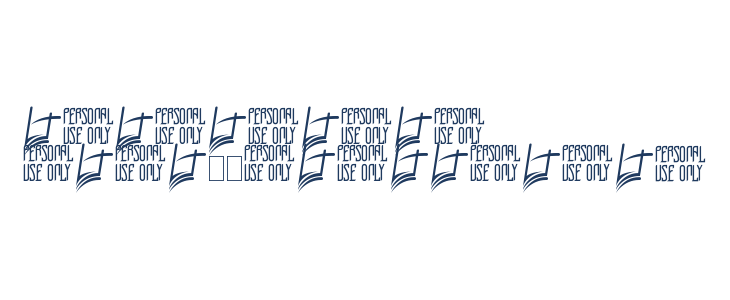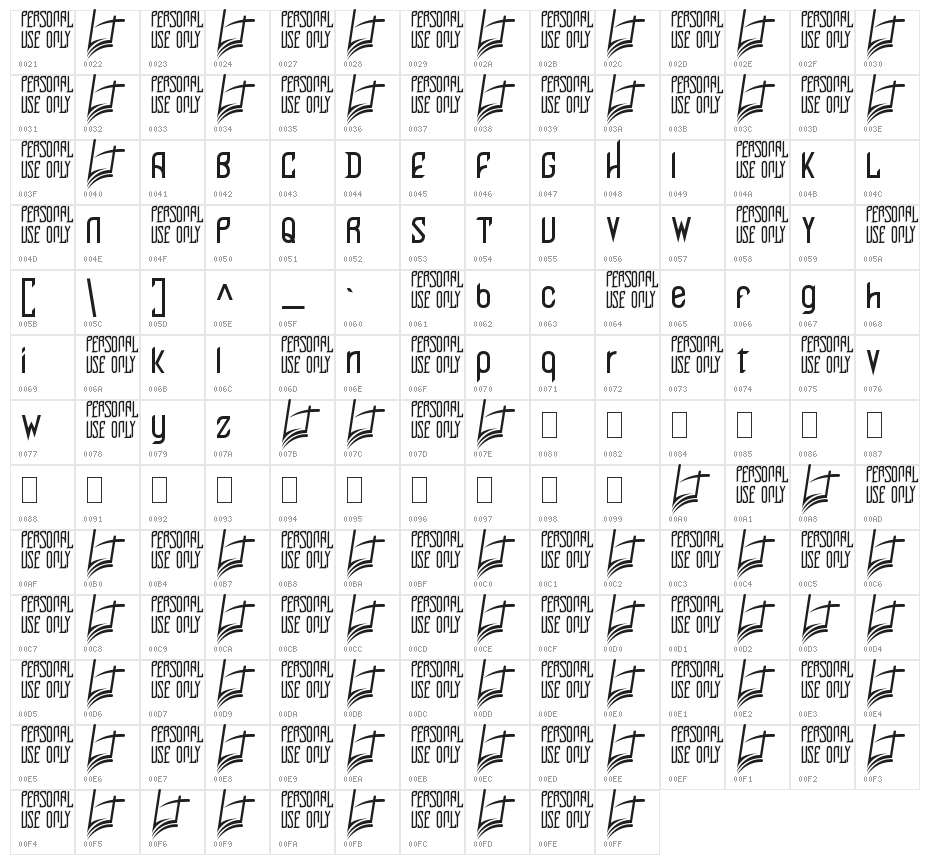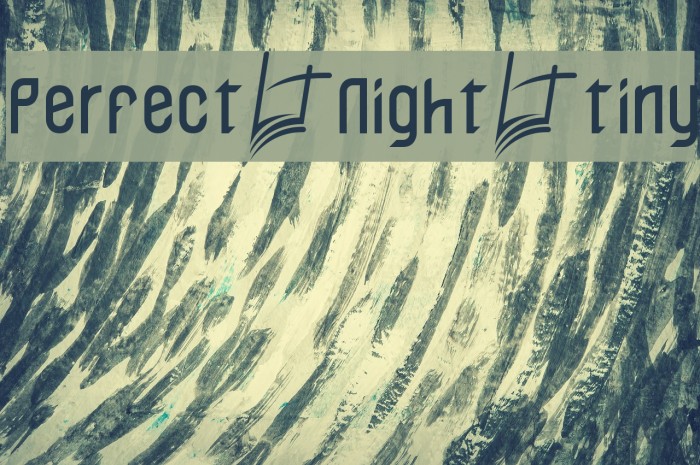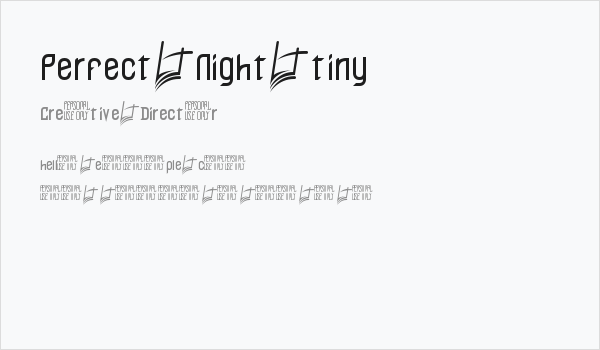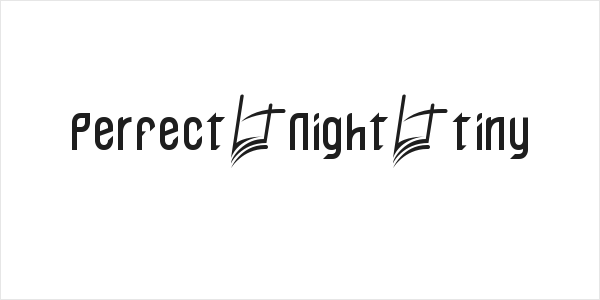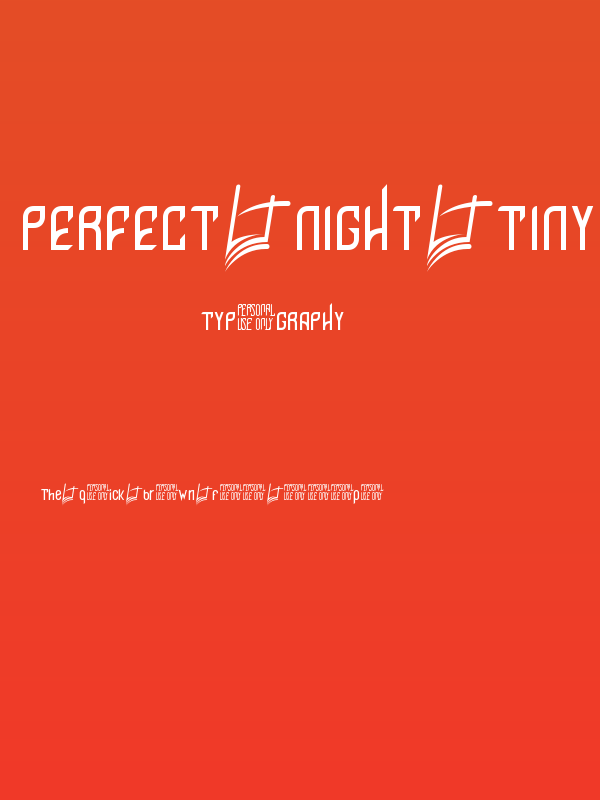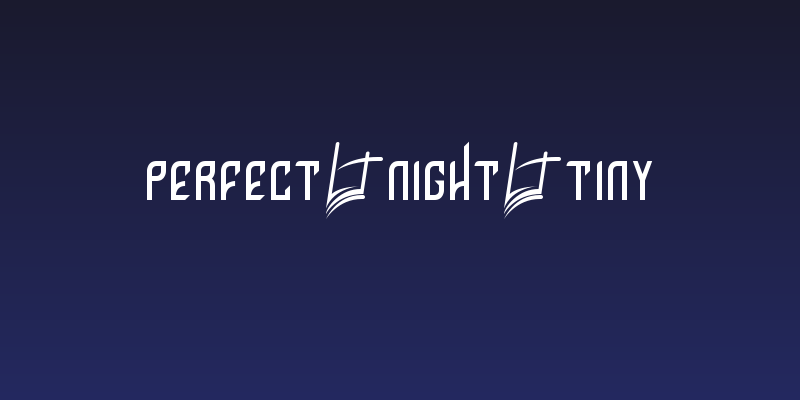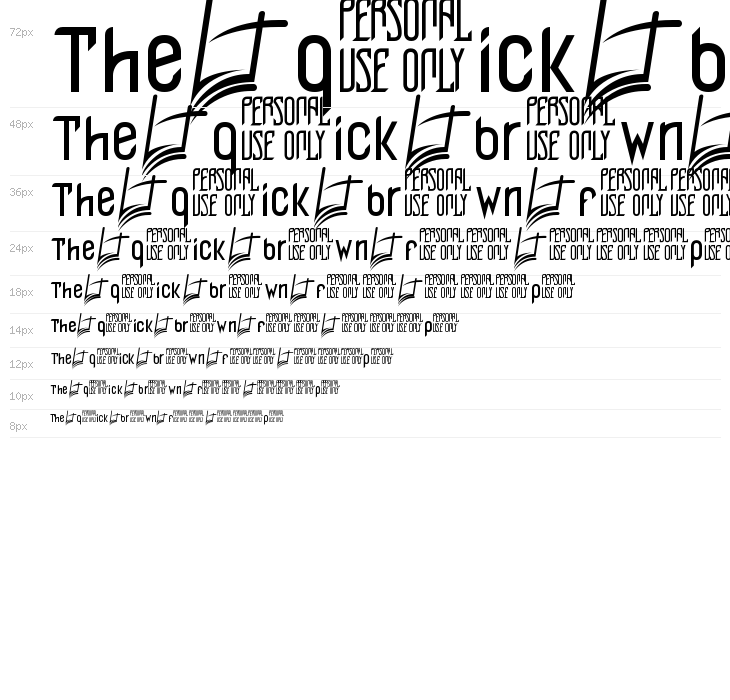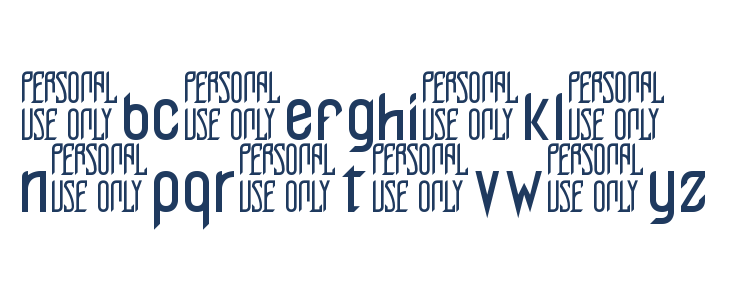
Perfect Night tiny Font
Perfect Night tiny Description
This font features a unique and modern design with a strong emphasis on geometric shapes and sharp angles. The uppercase letters are bold and striking, with a futuristic aesthetic that makes them stand out. The lowercase letters maintain the geometric theme but with a slightly softer approach, providing a nice contrast to the uppercase. The numbers and special characters are designed to match the overall style, ensuring consistency throughout. This font is ideal for projects that require a contemporary and edgy look.